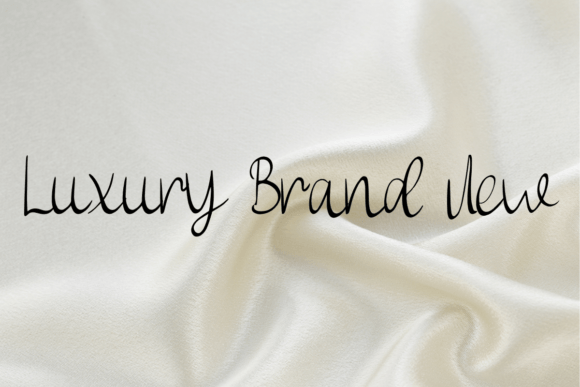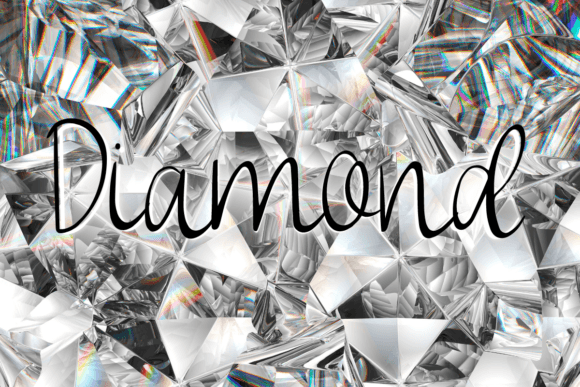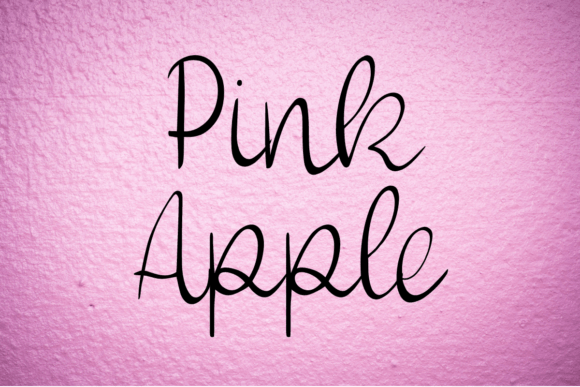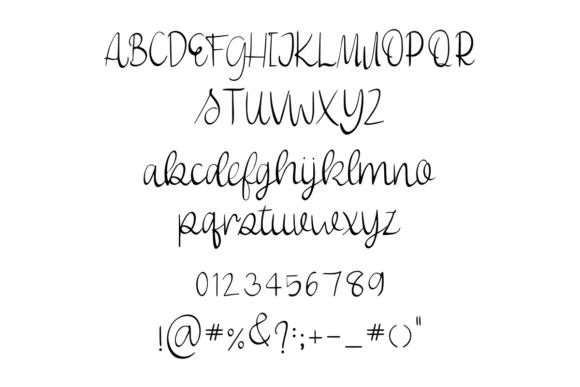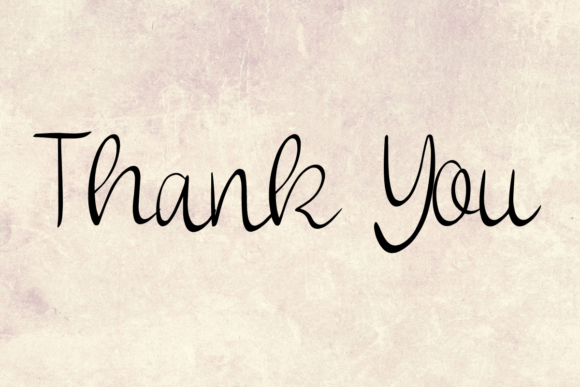
Adding a Personal Touch: Discover Charm Sweet Font
Have you ever stared at a blank sheet of paper, trying to come up with the perfect way to express your gratitude or excitement? The pressure to get it just right can be overwhelming, especially when it comes to special occasions like weddings or birthdays. But what if you could infuse your words with a little extra love and personality?
That’s where Charm Sweet Font comes in – a stylish and modern handwritten font designed to add a touch of warmth and elegance to your designs. Whether you’re a seasoned designer or a creative enthusiast, this font is sure to become your new favorite companion for crafting unique and eye-catching projects.
With its versatility and charm, Charm Sweet Font is a valuable asset for designers looking to elevate their work and make a lasting impression. From wedding invitations to business cards, this font is perfect for adding a handwritten touch that sets your designs apart.
Charm Sweet Font Key Features
- Unique Characteristics: Charm Sweet Font features a unique, hand-drawn style with subtle imperfections, giving it a warm and inviting feel. The font also includes a range of ligatures and contextual alternates to enhance its legibility and aesthetic appeal.
Charm Sweet Font Review
Charm Sweet Font is a whimsical, handwritten script that adds a touch of elegance to any design project. ✨ Its unique, flowing strokes and subtle flair make it perfect for creating eye-catching headings and titles.
Here are some of the features that make Charm Sweet Font stand out:
- ✨ Beautiful, handwritten style that adds a personal touch
- ✨ Wide range of languages supported, making it versatile for global designs
- ✨ Beautiful ligatures and swashes for added flair
- ⚠️ Limited font weights and styles may limit its use in certain designs
- ⚠️ Some characters may be difficult to read, especially at small font sizes
- ⚠️ May not be suitable for formal or professional designs
Overall, Charm Sweet Font is a lovely addition to any designer’s toolkit. While it may not be suitable for every project, its unique charm and beauty make it a great choice for creative, whimsical designs.
Tips for Getting the Most Out of Charm Sweet Font
Use Charm Sweet Font to add a touch of whimsy and elegance to your designs.
Combine it with other fonts to create a unique and eye-catching look.
Use it for invitations, greeting cards, and other paper crafts.
Baby shower invitations and decorations
Holiday cards and gift tags
Wedding and event branding
Alternatives to Charm Sweet Font
Lato is a modern sans-serif font that works well for headings and body text. It’s highly legible and versatile, making it suitable for a wide range of designs. Compared to Charm Sweet Font, Lato has a more geometric and sleek feel, while Charm Sweet Font has a softer, more handwritten look.
Alegreya is a serif font with a unique blend of modern and traditional elements. It’s ideal for designs that require a touch of elegance and sophistication. In comparison to Charm Sweet Font, Alegreya has a more formal and refined feel, whereas Charm Sweet Font is more playful and whimsical.